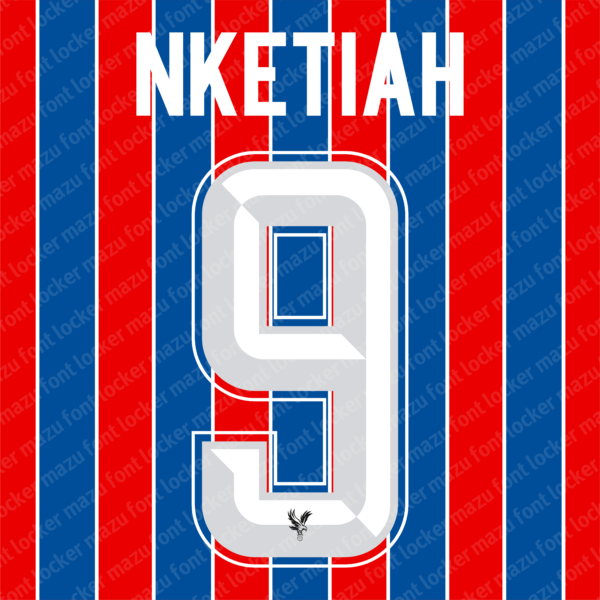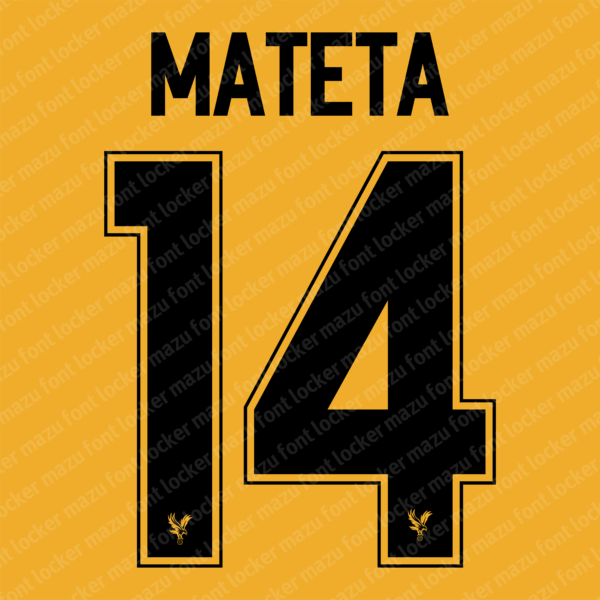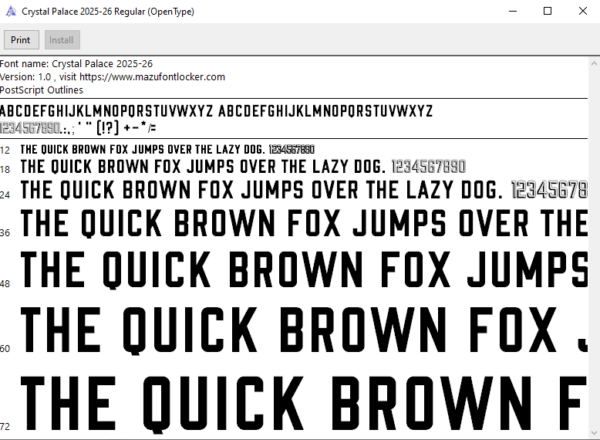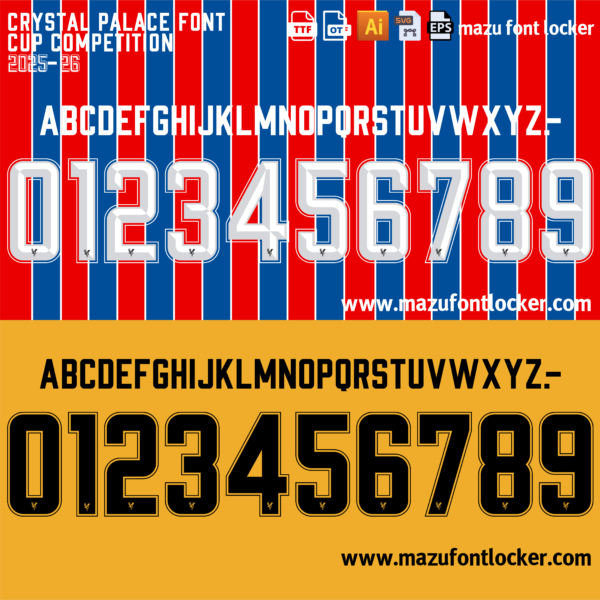
Crystal Palace 2025-2026 Font is a high-quality football jersey font vector designed to replicate the official lettering and numbering style used during the 2025-2026 season. This Crystal Palace 2025-2026 font is perfect for designers, football fans, and creators who want accurate and professional jersey customisation.
Inspired by the official kit of Crystal Palace, this Crystal Palace 2025-2026 font delivers a clean and authentic match-day appearance. Every letter and number has been carefully recreated to match the real jersey design, ensuring your projects look realistic and professional.
Crystal Palace 2025-2026 font is a high-quality football jersey font vector created to replicate the official lettering and numbering style used during the iconic 2025-26 Season. Perfect for designers, football fans, and jersey customisation projects, this font set delivers an authentic and professional match-day appearance.
Inspired by the original Italy national team kit, every letter and number has been carefully recreated to ensure accurate retro styling for both digital and print projects.
• Authentic 2025-2026 Crystal Palace jersey lettering style
The authentic lettering style helps recreate the classic look of the Crystal Palace 2025-2026 kit with professional accuracy.
Unlike generic jersey fonts, this set is designed with a strong focus on authenticity and accuracy. Every detail is based on the original match lettering style used during the 2025-2026 season, helping designers and collectors create realistic football shirt designs.
This Crystal Palace 2025-2026 font vector set is designed for authentic football jersey customization and works perfectly for retro football projects, collector designs, and professional sportswear artwork.